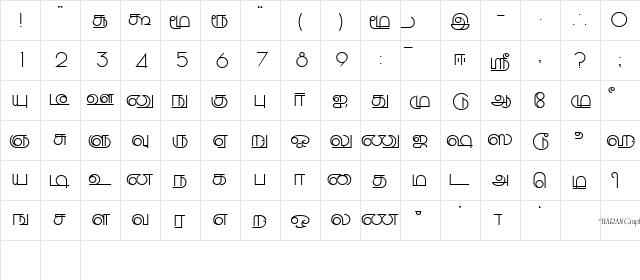
Silapam Plain
Design Context for Silapam Typeface
Silapam is a composed and adaptable typeface that performs quietly and consistently across a wide range of design contexts.